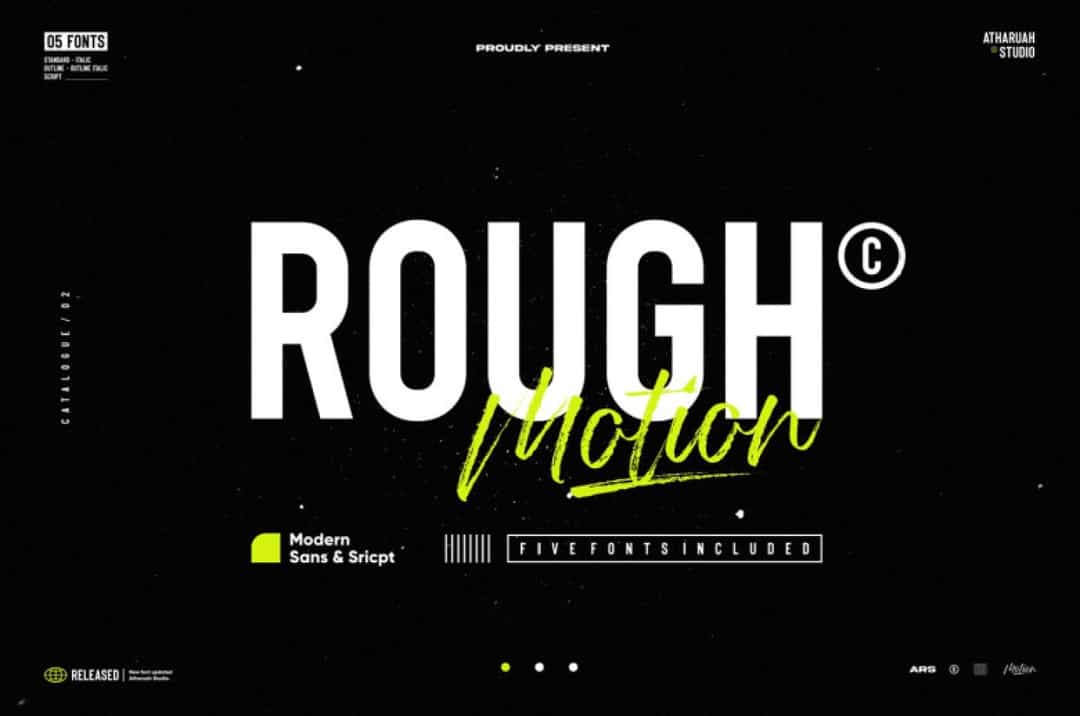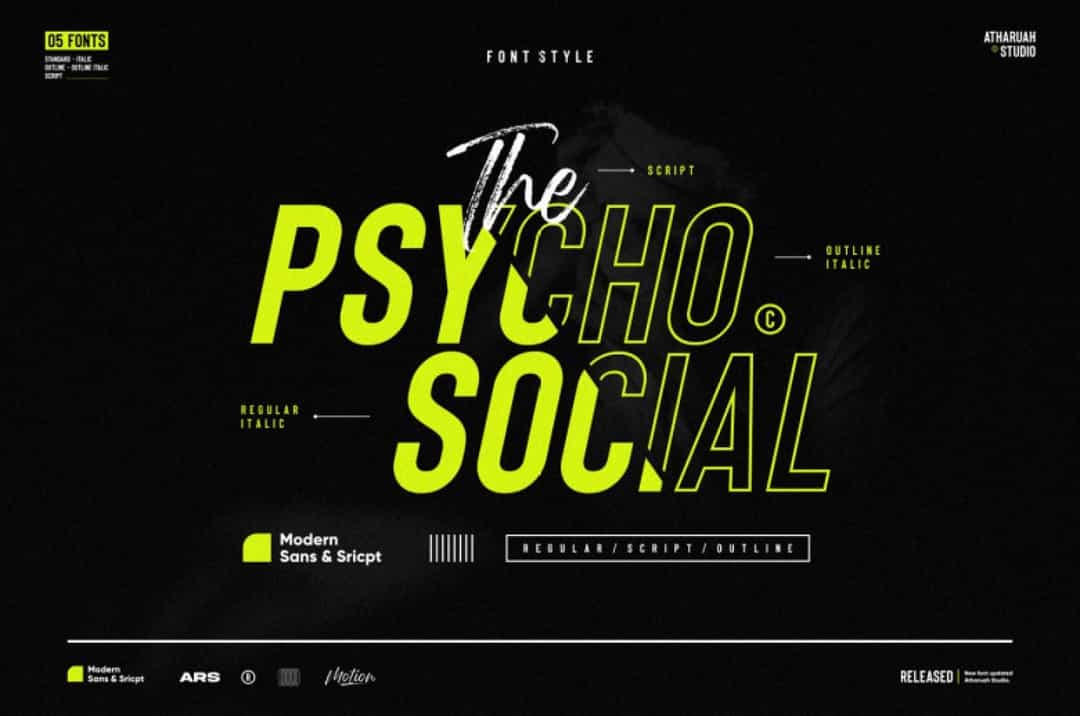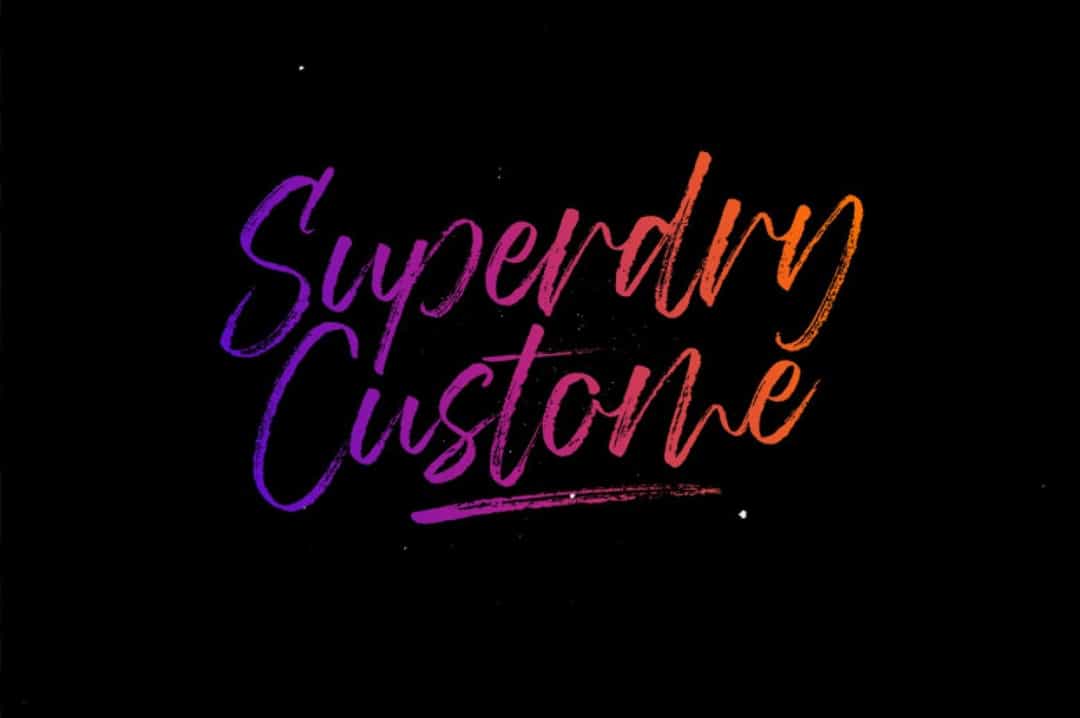
Discover Rough Motion Font, part of the Sans Serif Brush collection—a versatile and unique font perfect for adding a personal touch to your projects. Download it for free and enjoy crafting designs with style, from invitations to social media posts. This font is available exclusively for personal use, giving you the freedom to create without limits. Unlock your creativity with Rough Motion Font today!
Rough Motion Font Duo introduces our powerful and energetic font! Craft a balanced composition using sans serif fonts with script fonts to show how realistic its elements are in this font family. Ideal for branding posters, logos, music artowk and web design projects!